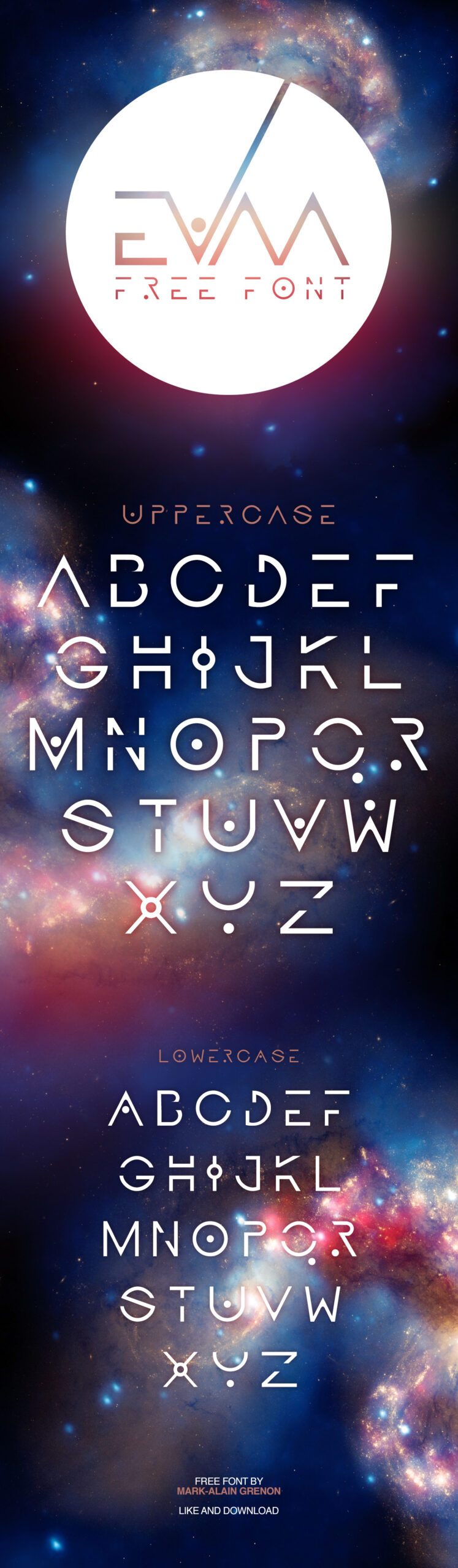
EVAA is a galactic display font with clean lines designed by Mark-Alain Grenon from Montreal, Canada. EVAA includes unique uppercase and lowercase glyphs. This font is perfectly suited for a variety of display purposes including logotypes, badges and labels, headlines and banners, prints and much more. Free for personal and commercial use!